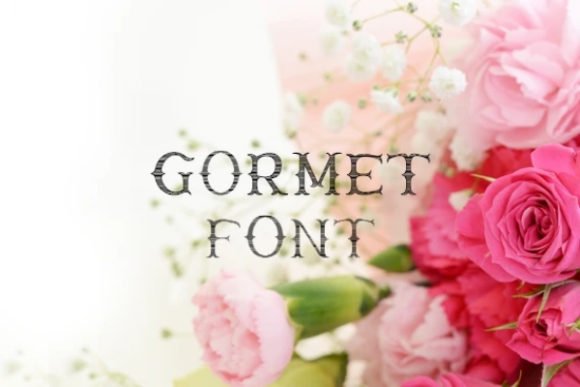
Unleash the Playfulness: Introducing Gormet Font
Have you ever found yourself stuck in a creative rut, searching for the perfect font to add some whimsy to your design? It’s a moment we’ve all experienced – staring at a blank canvas, desperate for inspiration to strike. And then, it hits you: a burst of colorful creativity, a dash of childlike playfulness, and suddenly, your design is alive!
Enter the Gormet Font, a delightful display font designed to bring joy to your kids’ projects, school assignments, and even your personal branding. This charming font is perfect for adding a touch of whimsy to your designs, making it an invaluable asset for designers looking to inject some fun into their work. With its playful nature, the Gormet Font is sure to leave a lasting impression on your audience.
- Unique Characteristics: The font features a unique blend of modern and classic design elements, with intricate details and ornate flourishes that set it apart from other fonts.
Gourmet Font Review
I recently had the chance to work with the Gourmet Font, and I must say it’s a mixed bag. Here are my thoughts.
- Elegant design: Gourmet Font has a sophisticated, upscale feel to it. It’s perfect for restaurants, food blogs, or any project that needs a touch of luxury.
- Great for headings: The font’s bold weights and elegant lines make it ideal for headings and titles. It really stands out on the page.
- Versatile: Gourmet Font comes in a range of weights, from light to bold, making it easy to use in a variety of contexts.
- Limited language support: Unfortunately, Gourmet Font doesn’t support many languages, which might be a problem for projects that require multilingual support.
- Not ideal for body text: While the font is great for headings, it’s not the most readable choice for body text. It can be a bit too ornate for large blocks of text.
Gourmet Font is a beautiful, high-end font that’s perfect for certain projects. However, its limitations and price point might make it less accessible to some designers. If you’re looking for a font that exudes luxury and sophistication, Gourmet Font is worth considering. But if you need a more versatile font that can handle large blocks of text or multiple languages, you might want to look elsewhere.
Use the “Gourmet Font” for creating elegant and sophisticated designs, such as:
– Menus and restaurant logos
– Food and wine labels
– High-end product packaging
– Luxury event invitations
Experiment with different font combinations and styles to create unique and eye-catching designs.